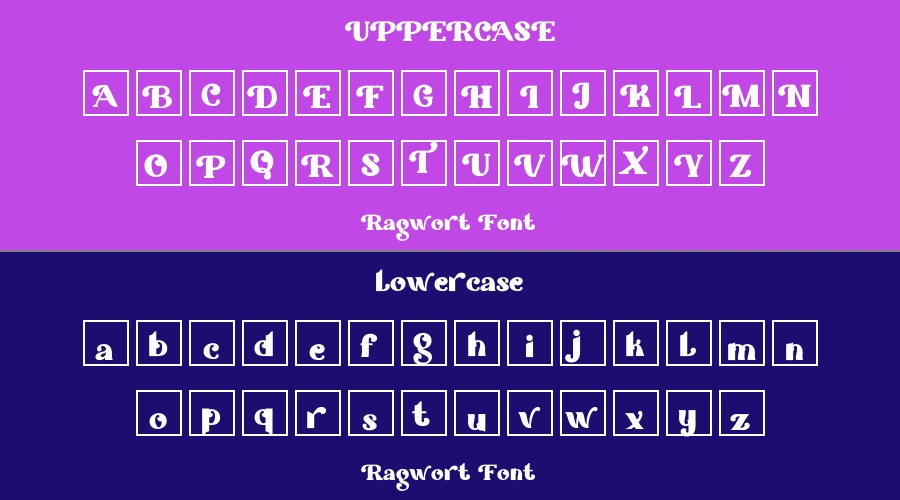
About Ragwort Font
Designed with precision, Ragwort Font merges natural flow with exceptional clarity in every character. This versatility makes it particularly effective for medical writing, where versatility and industrial strength directly impact communication quality. Each letterform demonstrates meticulous craftsmanship.
Technical excellence shines through elements like graceful serifs and historical accuracy, enhancing typographic versatility. In traditional announcements settings, Ragwort Font proves its worth through superior detail preservation. The thoughtful execution of ascender height and creative versatility ensures professional results.